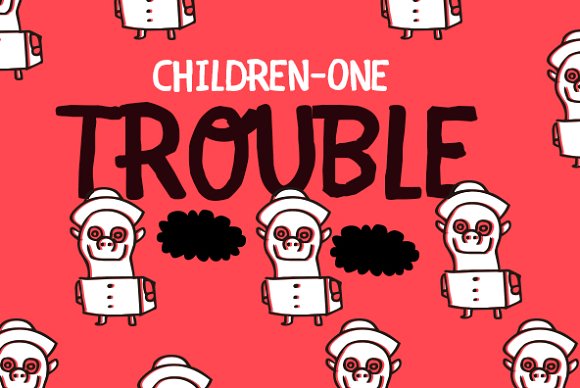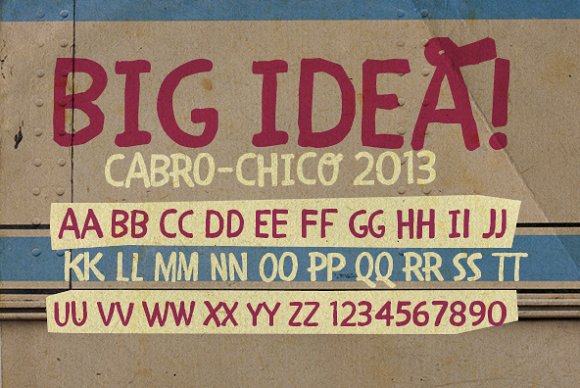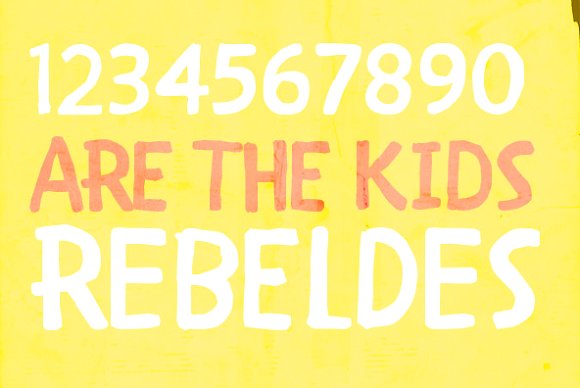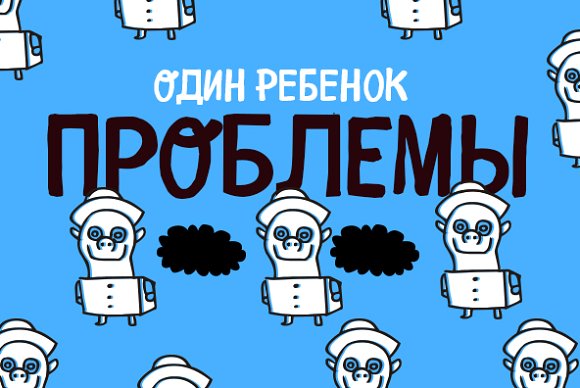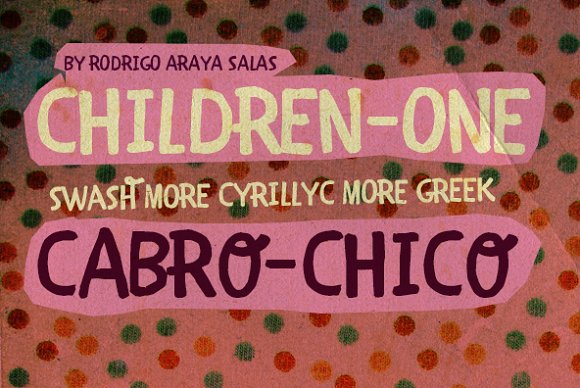
Introducing Children One Font: A Playful and Creative Typeface
Are you a designer or crafter looking for a font that captures the essence of childhood creativity? Look no further than Children One Font, a delightful typeface created by Rodrigo Typo. Inspired by the carefree and playful nature of drawing freehand letters in a childish style, this font is sure to bring a smile to your face and add a touch of whimsy to your designs.
The Story Behind Children One Font
Children-One was inspired by the artist’s own childhood experiences of drawing letters and words in a playful, freehand style. With its irregular shapes and imperfect lines, this font embodies the spirit of creativity and imagination that defines childhood. Rodrigo Typo, the creator of Children One Font, sought to capture the essence of this carefree approach to lettering and translate it into a digital font that could be enjoyed by designers and crafters around the world.
Key Features of Children One Font
So, what makes Children One Font so special? Here are just a few of its key features:
- Playful and whimsical design: Children One Font features irregular shapes and imperfect lines, giving it a charmingly childish feel.
- Freehand-inspired lettering: Each letter has been carefully crafted to capture the essence of freehand drawing, with a focus on creativity and spontaneity.
- Uppercase and lowercase letters: The font includes both uppercase and lowercase letters, making it perfect for a wide range of design applications.
- Easy to read: Despite its playful design, Children One Font is surprisingly easy to read, making it perfect for use in titles, headings, and other display text.
Uses for Children One Font
So, what can you use Children One Font for? The possibilities are endless! Here are just a few ideas to get you started:
- Children’s book design: Children One Font is perfect for use in children’s book design, adding a playful and imaginative touch to your illustrations and text.
- Crafting and DIY projects: Add a personal touch to your crafting and DIY projects with Children One Font, perfect for use on signs, labels, and other decorative items.
- Graphic design: Use Children One Font to add a touch of whimsy to your graphic design projects, from posters and flyers to logos and branding materials.
- Digital art: Children One Font is also perfect for use in digital art, adding a playful and creative touch to your illustrations and designs.
Why Choose Children One Font?
So, why choose Children One Font over other fonts? Here are just a few reasons:
- Unique and distinctive design: Children One Font is a truly unique and distinctive font that will set your designs apart from the crowd.
- High-quality design: The font has been carefully crafted to ensure that it is of the highest quality, with clean lines and precise curves.
In conclusion, Children One Font is a delightful and playful typeface that is sure to bring a touch of childhood creativity to your designs. With its irregular shapes, imperfect lines, and whimsical design, this font is perfect for use in a wide range of applications, from children’s book design to graphic design and digital art. So why not give Children One Font a try today and see the difference it can make in your designs?